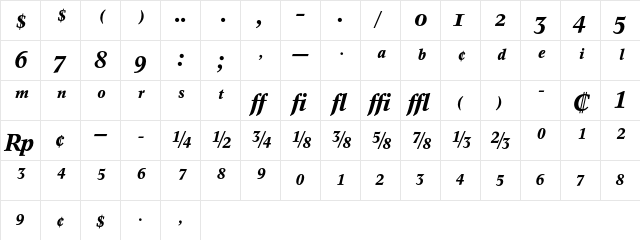
Concorde BE Medium Italic Expert Font Preview
Concorde BE Medium Italic Expert
Design Context for Concorde BE Typeface
Concorde BE takes a measured approach to typography — its balanced proportions and neutral character make it a reliable workhorse for both digital and print work. Its italic angle brings a sense of urgency and motion to the letterforms.
Pro Tip: Try Concorde BE for annotation and caption copy alongside an upright companion — the contrast in angle creates a dynamic but ordered typographic system.